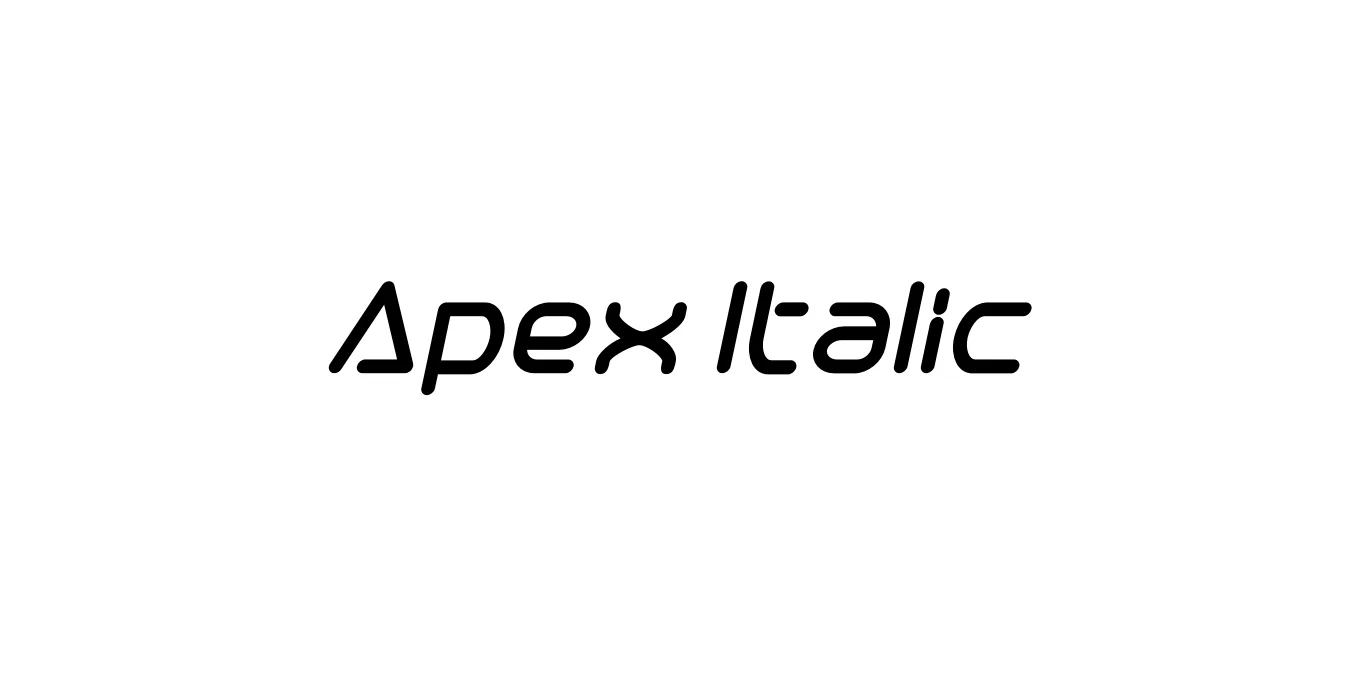
Apex Italic
Designed by Chester Jenkins
Apex Italic is a distinguished geometric sans-serif typeface created by the renowned designer Chester Jenkins. Originally released through the Thirstype foundry and later becoming a core part of the Village library, the font was crafted to embody a balance between technical rigidity and organic flow. Its structure is built upon clean, robust lines that make it an excellent choice for both digital and print media, providing a sophisticated yet approachable appearance.
The Italic version of this family is specifically engineered to provide a dynamic sense of motion without sacrificing the structural integrity of the original letterforms. Over the years, Apex Italic has become a staple in corporate identity projects and editorial layouts due to its exceptional legibility and modern aesthetic. It excels in environments where a clear, authoritative, and contemporary voice is required, making it a favorite among graphic designers worldwide.
Apex Italic Best Uses
Perfect for creating tech-oriented and modern corporate logos.
Excellent for pull-quotes, subheaders, and adding emphasis in print layouts.
Highly legible for user interface elements and navigational menus.
Its strong, clean shapes work well for directional signage and environmental graphics.